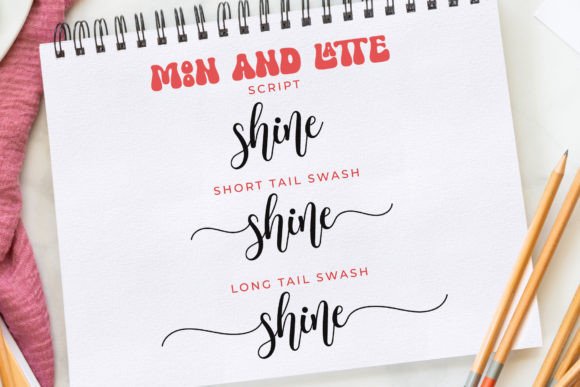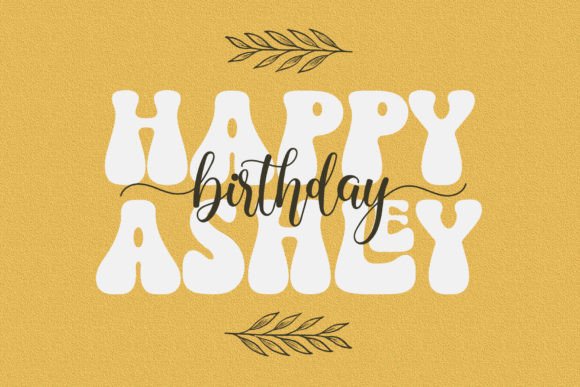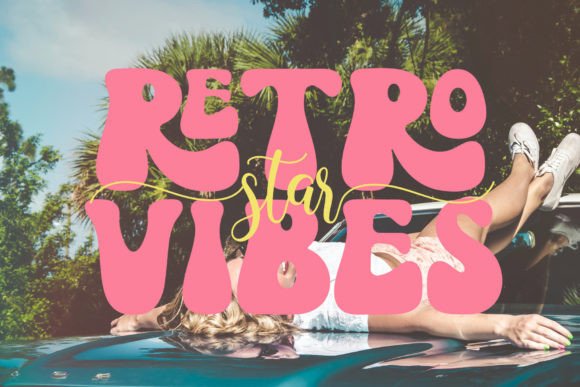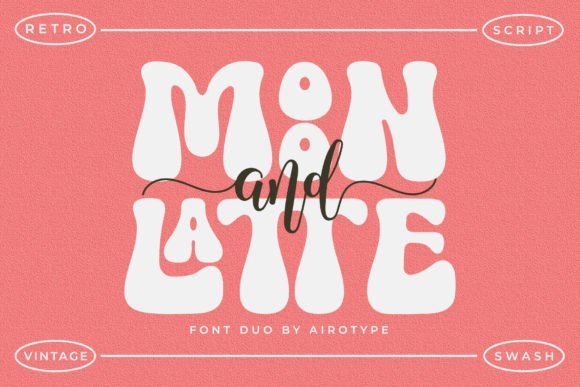
Introduction to Moon and Latte Font
Moon and Latte is a modern and exquisite duo font that is the perfect pairing of a script and display fonts.
The script font features elegant, flowing letterforms, while the display font boasts bold, eye-catching shapes Use them separately or together to create stunning designs for branding, packaging, and more.
Moon and Latte Font offers exceptional quality and versatility, making it a valuable addition to your design toolkit. Whether you’re creating for personal projects or commercial use, Moon and Latte Font delivers professional results.